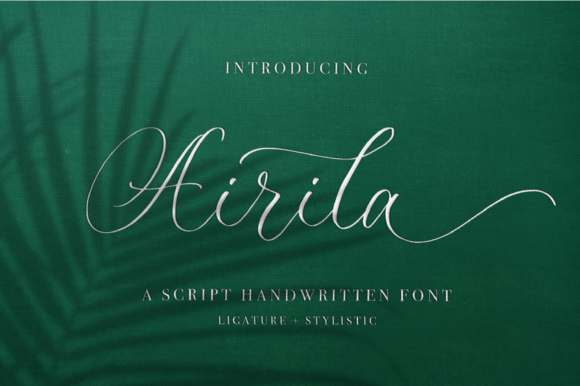
The Enchanting Airila Font: A Designer’s New Best Friend
I still remember the frustration of working on a project, pouring my heart and soul into every detail, only to get stuck on one thing: finding the perfect font. It was for a client’s greeting card design, and I wanted something that would make it stand out. After hours of scrolling through font libraries, I stumbled upon Airila, an enchanting handwritten font that instantly captivated me. Its versatility and charm won me over, and I’ve been hooked ever since.
An Honest Review of Airila
What I Love About Airila ✨
- 💫 Airila is a beautifully crafted handwritten font with a unique, enchanting feel.
- ✅ It’s incredibly versatile, suitable for a wide range of applications, from greeting cards to headlines.
- 🔍 PUA (Private Use Area) encoded, making it easy to access all glyphs and swashes.
- 🎨 The font comes with a range of OpenType features, including stylistic alternates and ligatures, allowing for endless creative possibilities.
- ⚠️ Some users might find the font’s handwritten nature a bit too whimsical for formal designs.
- ⚠️ As with any script font, readability can be an issue at very small sizes or when used in large blocks of text.
The Story Behind Airila
Airila’s creation is a testament to the power of inspiration. Its designer, a typography enthusiast, aimed to craft a font that would evoke a sense of wonder and magic. With Airila, they succeeded in creating a versatile font that’s perfect for a wide range of creative projects.
| What is PUA encoding, and how does it benefit Airila users? | PUA (Private Use Area) encoding allows users to access a font’s glyphs and swashes easily, making it simpler to create unique designs with Airila. |
| Is Airila suitable for body text? | While Airila is a beautiful font, its handwritten nature might make it less suitable for large blocks of body text. It’s best used for headlines, titles, or short paragraphs. |